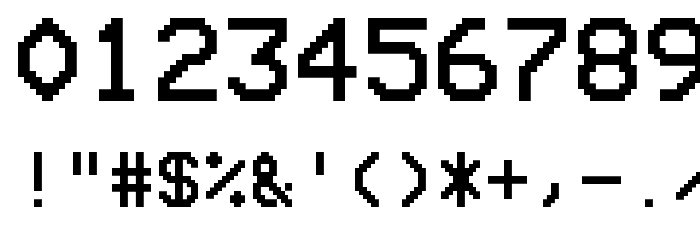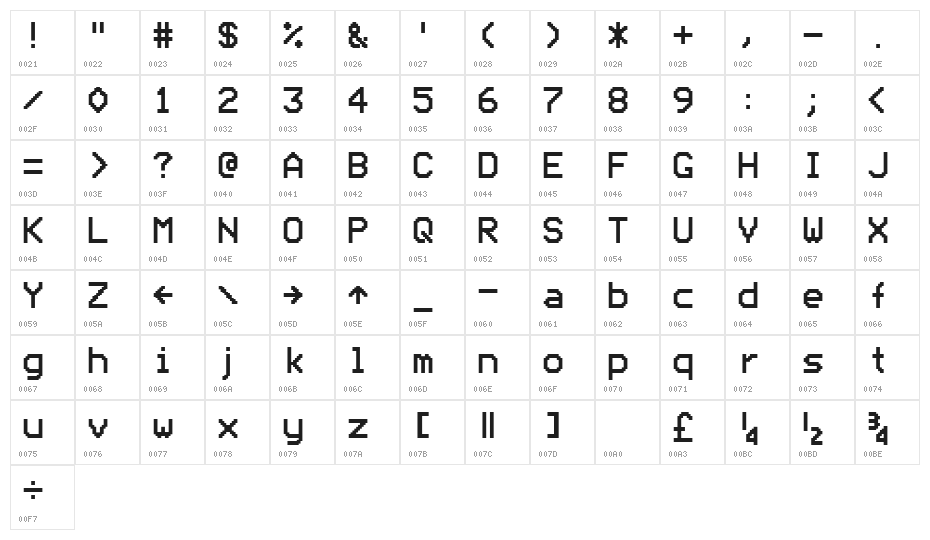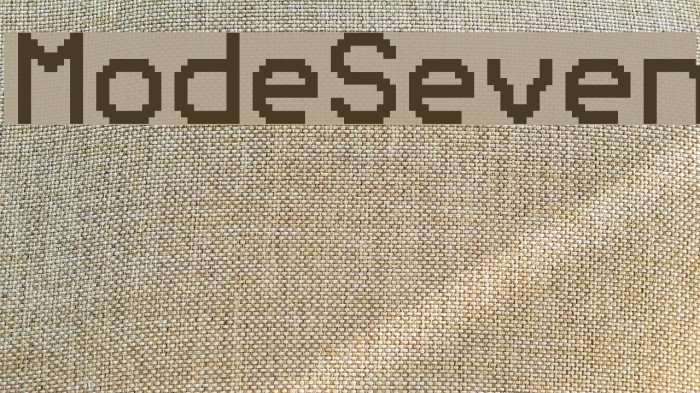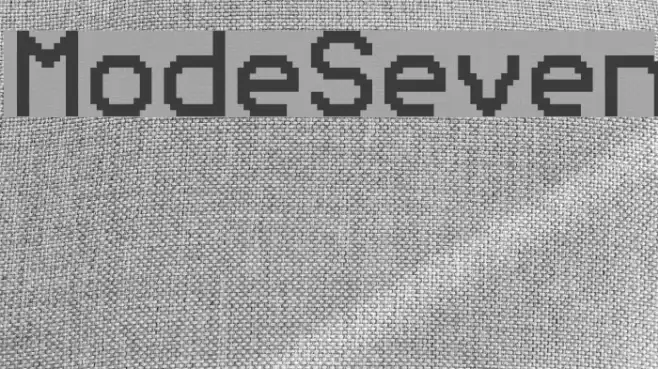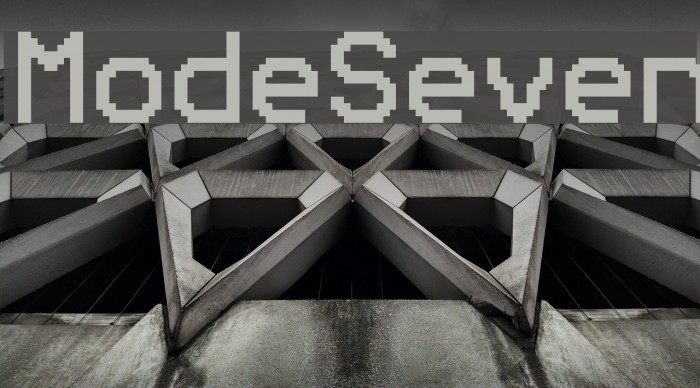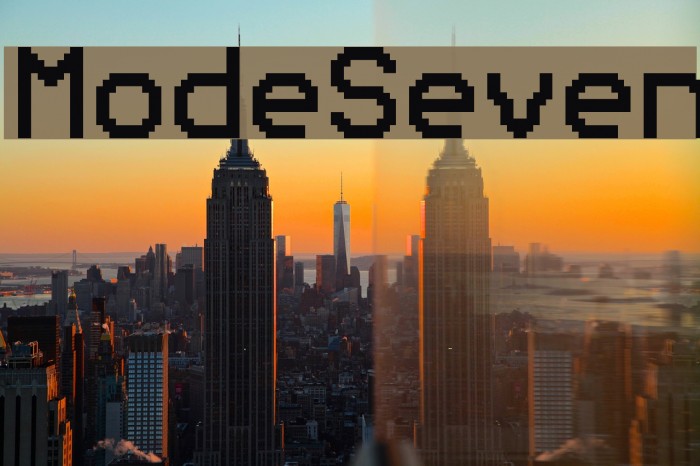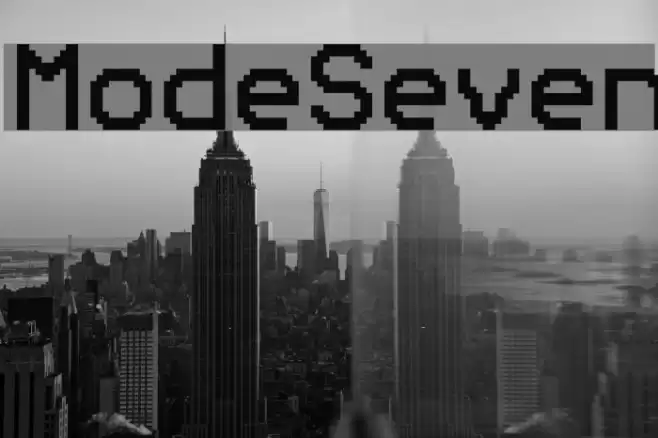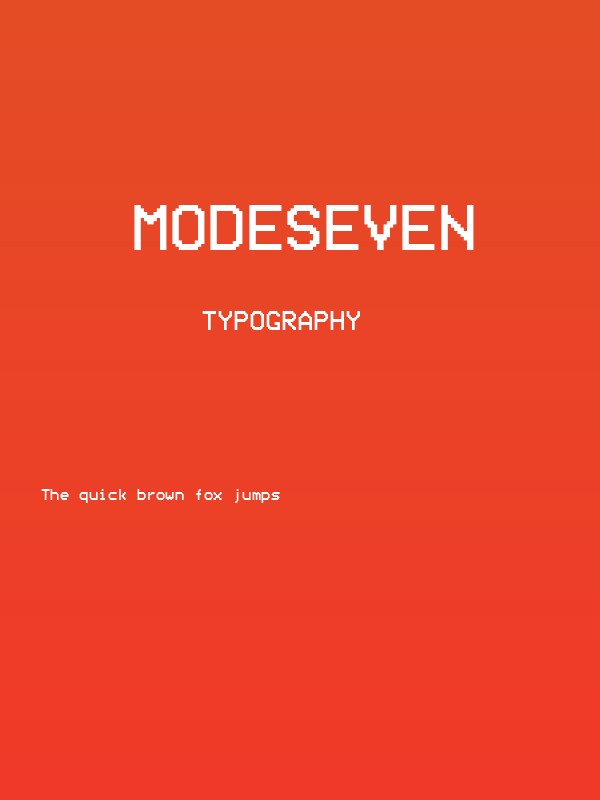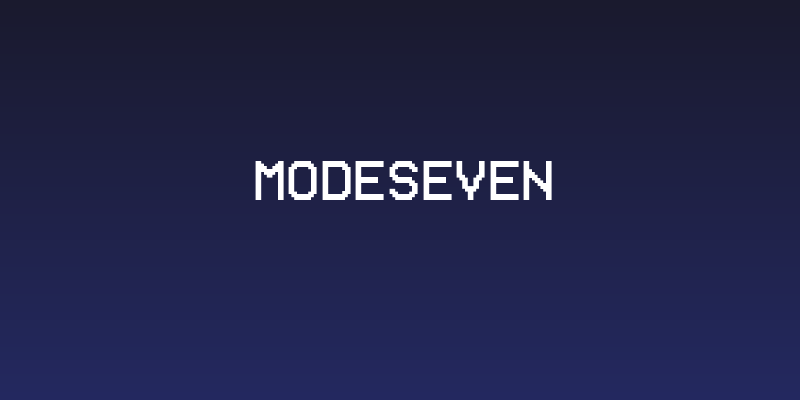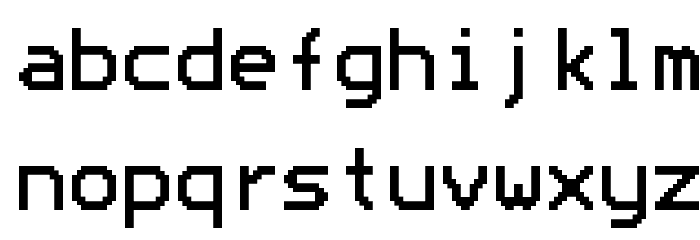
ModeSeven Font
ModeSeven Description
This font features a pixelated, monospaced design reminiscent of classic video game and computer terminal text. Each character is constructed with a grid-like precision, giving it a retro digital appearance. The uniformity in width across all characters ensures a consistent and orderly look, making it ideal for environments where clarity and alignment are crucial. The uppercase and lowercase letters maintain a similar height, enhancing readability in small sizes. The numerals and special characters are crafted with the same pixelated style, ensuring a cohesive aesthetic throughout the character set.
Overall StyleVintage
Use CaseHeadlines, Digital displays, Coding
Proposed ProjectsIdeal for retro video games, coding environments, digital art projects, and any design requiring a vintage computer aesthetic.